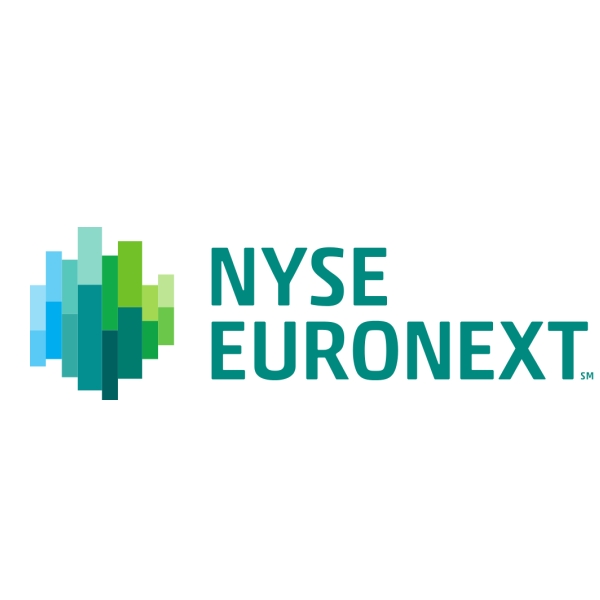
NYSE Euronext Font
The logo of NYSE Euronext is most likely created with Akko Pro Medium font, which is designed by Linotype's Akira Kobayashi in 2010. Akko suite includes Akko and Akko Rounded typefaces, fusing DIN Next's restrained and functional style with Cooper Black's organic and informal style. More details can be found here.